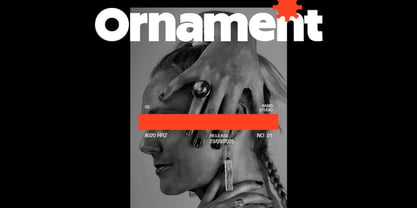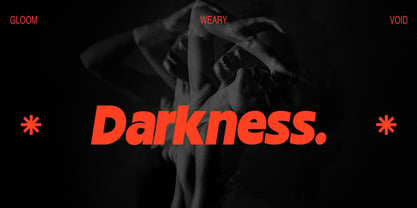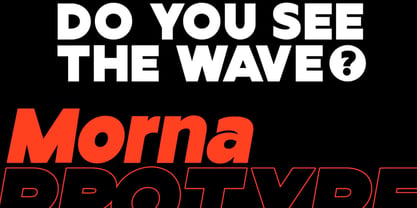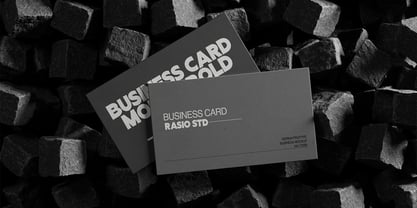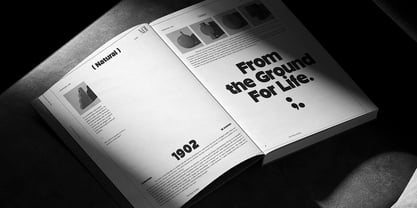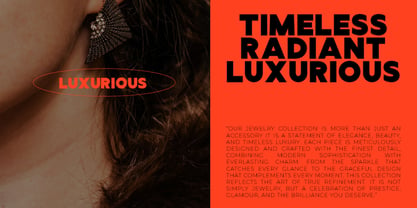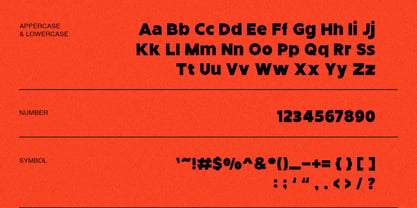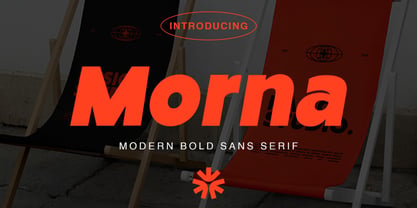
Morna
von Rasio Studio
Die Schriftfamilie Morna wurde von Fajar Indra entworfen und von Rasio Studio veröffentlicht. Morna enthält 2 Stile und Familienpaketoptionen. Mehr über diese Familie
Morna is a confident and modern bold sans serif typeface designed for strong visual impact. With sharp lines, clean shapes, and a distinctive contemporary feel, Morna is ideal for headlines, branding, editorial design, posters, packaging, and more. It includes uppercase and lowercase characters, numbers, punctuation, and symbols all crafted with precision for both print and digital applications. Morna is a go-to typeface for designers and creatives who want a bold, modern aesthetic without sacrificing clarity. It’s perfect for use in product packaging, posters, branding identities, event promotions, tech startups, and social media visuals. The clean and versatile structure makes it easy to pair with other typefaces or use alone for maximum impact.
Designer: Fajar Indra
Aktuelle Foundry: Rasio Studio